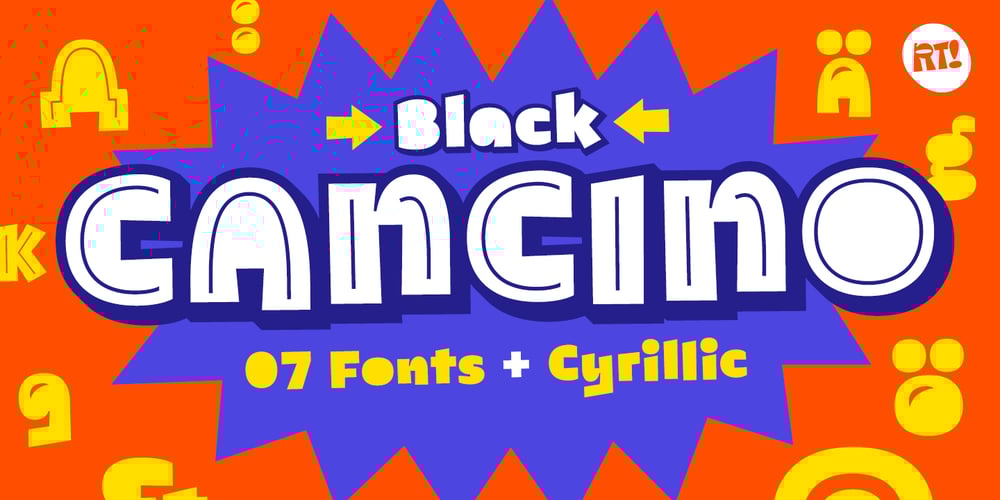
CANCINO BLACK Font Family was designed by Rodrigo Araya Salas, Bruno Jara Ahumada and published by RodrigoTypo. CANCINO BLACK contains 7 styles and family package options. Cancino Black”, a modular typeface, extremely heavy but with very gestural touches, contains 07 styles that make the title or logo more entertaining. in addition to containing different alternatives and the Cyrillic alphabet.